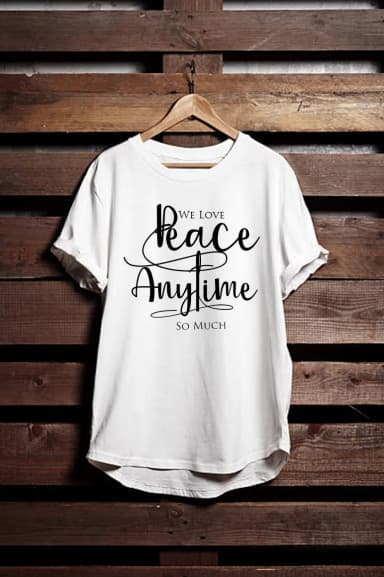
Mellisa Font by Haksen is a flowing calligraphic script marked by dramatic stroke contrast and refined letterforms that bring personalized elegance to digital and print work. The typeface balances organic fluidity with precise design, making it distinctly suitable for projects demanding sophisticated, handcrafted appeal without the impracticality of actual handwritten text. Its distinctive weight variation and refined proportions set it apart in the crowded landscape of decorative scripts.
This font shines across multiple creative categories. Event designers frequently employ calligraphic scripts like Mellisa for custom wedding invitation suites and engagement announcements where typography conveys formality and care. Luxury skincare and cosmetics brands integrate such typefaces into premium packaging and product label design, where visual refinement directly influences brand perception. Social media creators use scripts like this to design lifestyle brand headers and wellness-focused graphics that feel intimate rather than mass-produced. Independent stationery makers and small business owners similarly rely on these typefaces to craft personalized business cards and custom gift packaging that differentiate their offerings.
The high-contrast structure ensures clarity whether displayed large on event materials or smaller in digital contexts, providing practical utility alongside aesthetic appeal. Mellisa represents an investment in typeface diversity for designers who move beyond generic decorative fonts to seek more distinctive solutions for their creative work. Discover Mellisa Font on Creative Fabrica and access this modern calligraphic resource for your next design endeavor.
Mellisa Font by Haksen Font is a script font that shines as a display or heading face. Pair it with a clean sans-serif or serif font for body text β the contrast creates a clear hierarchy while the two styles stay balanced and easy to read.